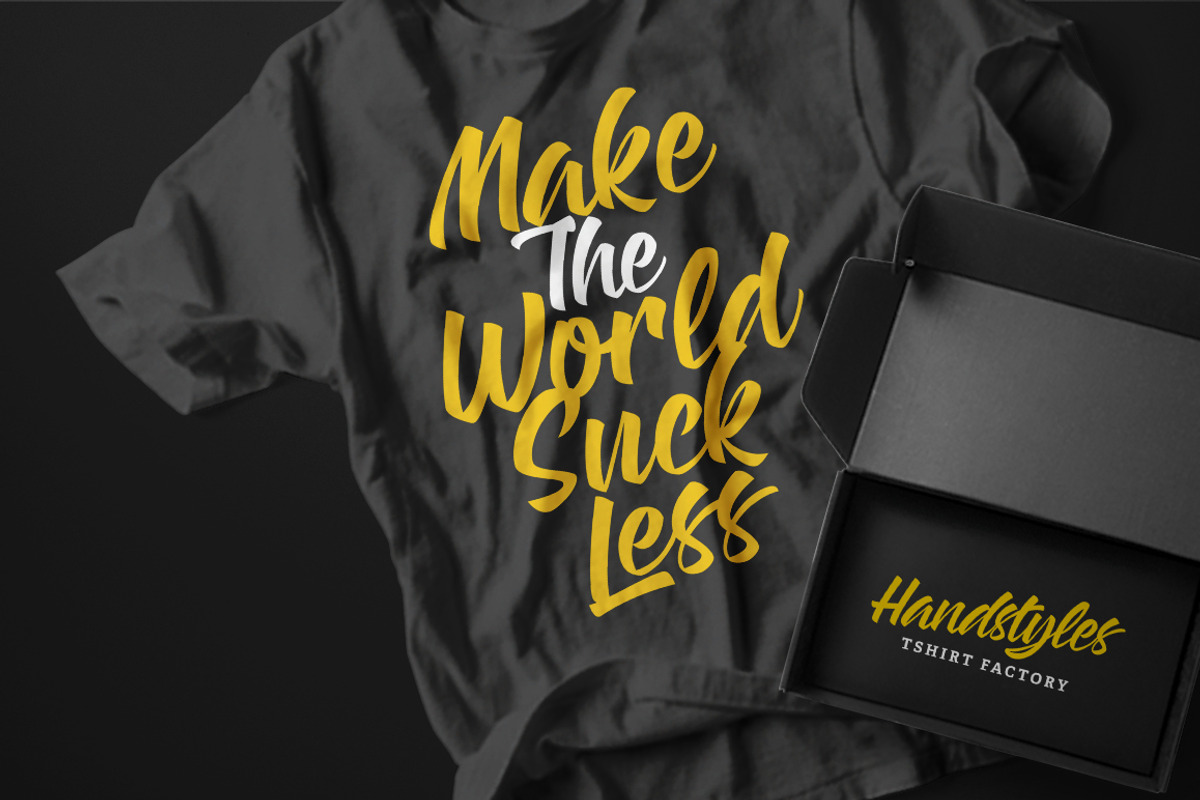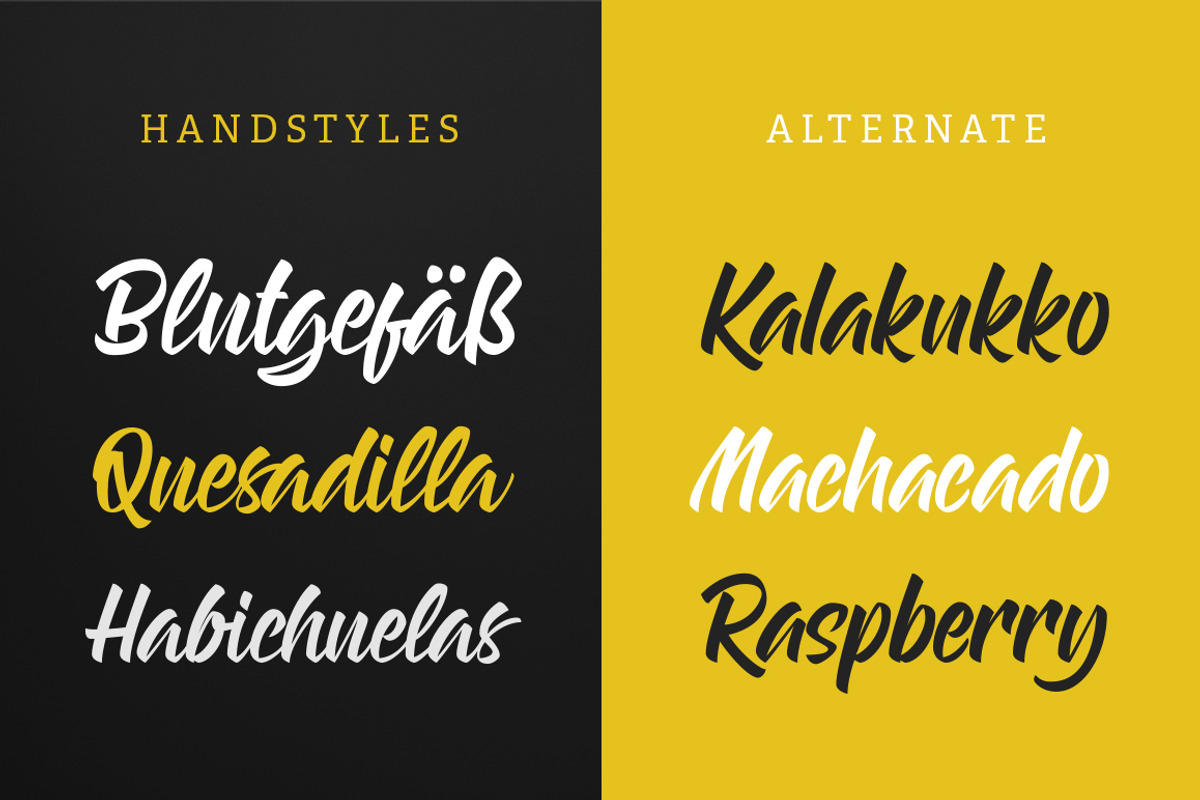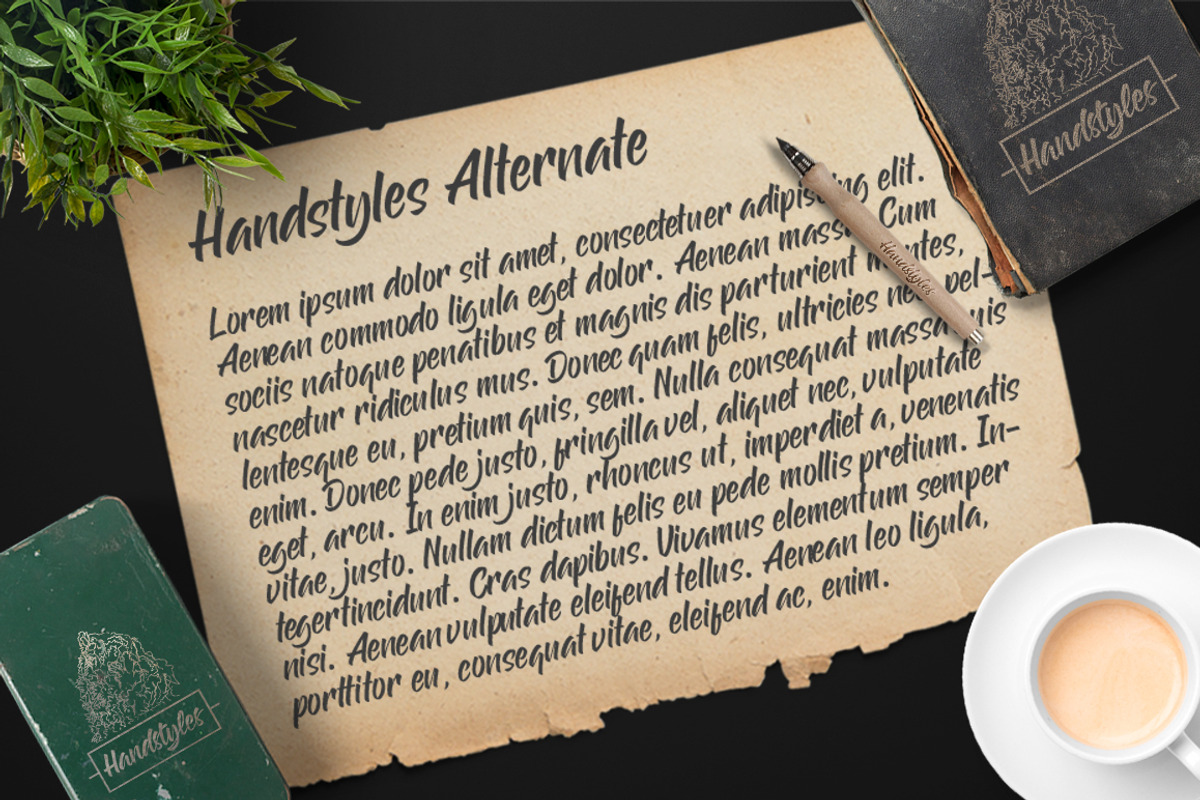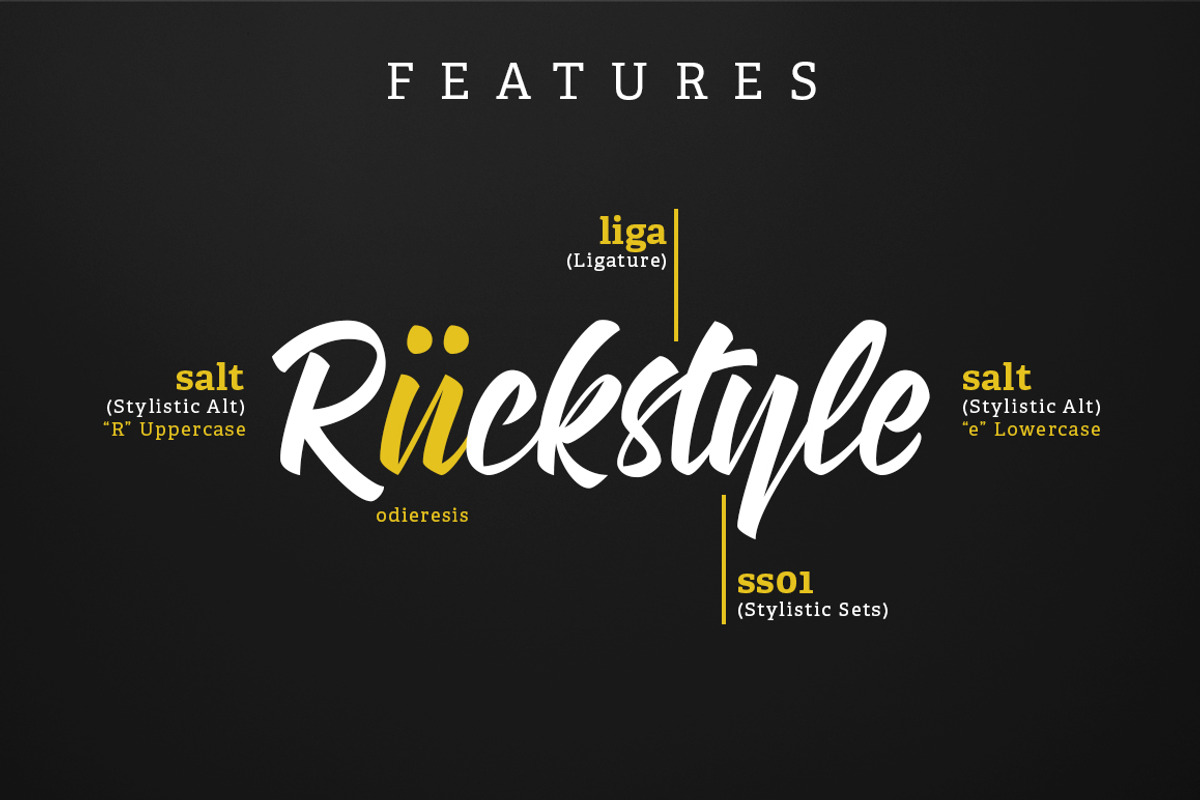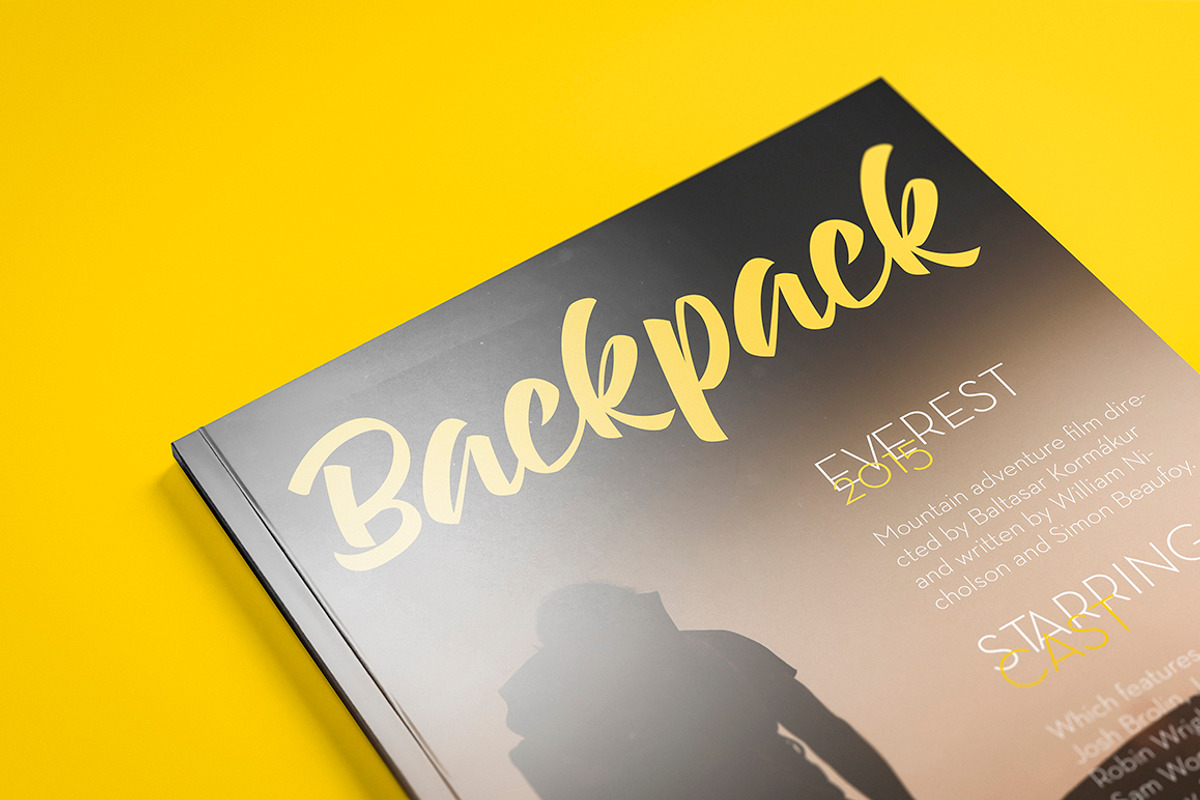
Handstyles
Handstyles by Font Bundles is a font selected for branding, posters, packaging, typography.
- It is an opentype font and suitable for any Graphic Designs such as T-shirt and Poster Design, Branding materials, Logo and all Stationery p
Why Handstyles is worth a look
Handstyles by Font Bundles fits naturally into Branding, posters, packaging, typography.